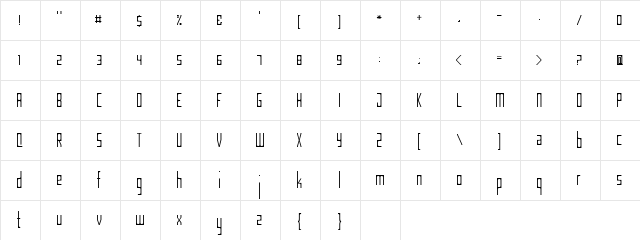
Garden Least
Design Context for Garden Typeface
Garden offers clean, dependable letterforms without strong stylistic allegiance, making it a practical choice for designers who need flexibility.